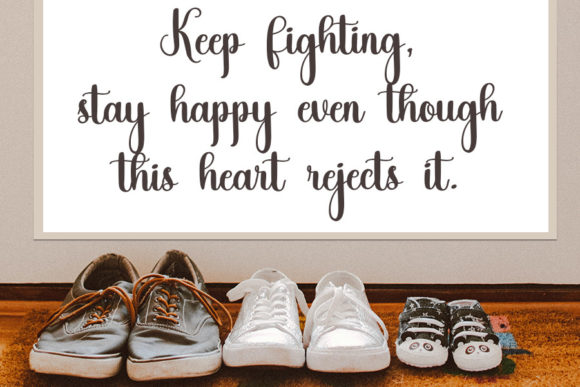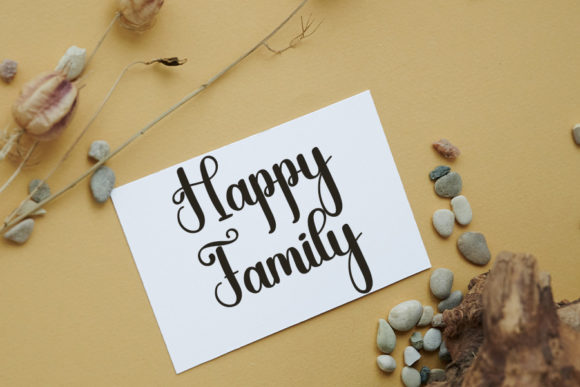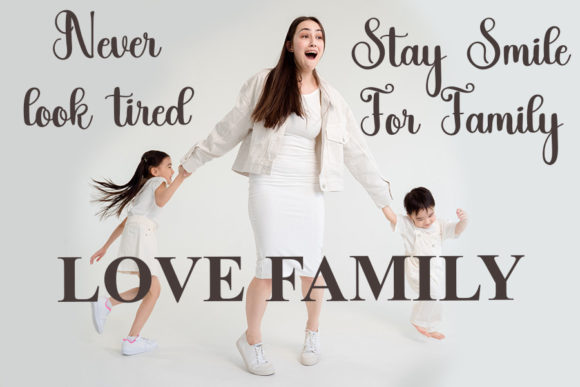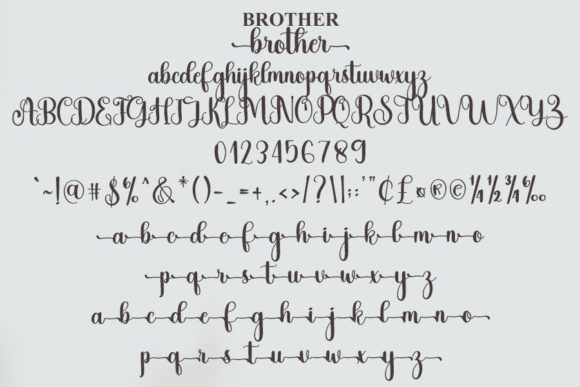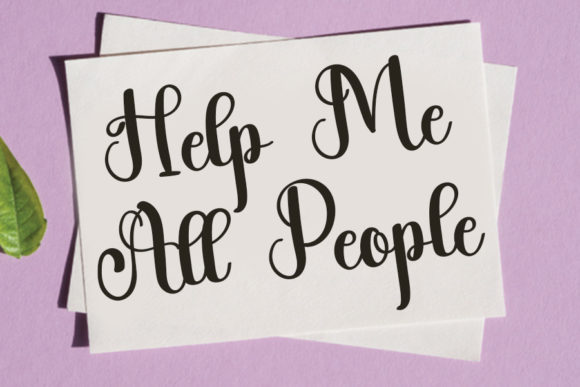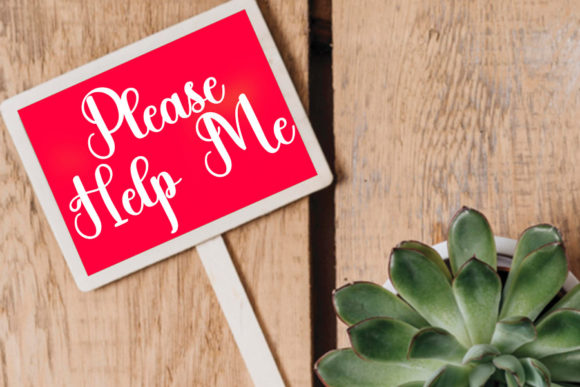
Introducing Brother Font: A Timeless Classic with a Contemporary Twist
Are you tired of using the same old fonts in your designs? Look no further than Brother Font, a stylish handwritten font that brings a touch of elegance and sophistication to any project. Inspired by timeless classic calligraphy, Brother Font is a contemporary take on traditional typography, perfect for designers and crafters looking to add a unique touch to their work.
The Story Behind Brother Font
Brother Font is more than just a font – it’s a work of art. With its impeccable form and stylish handwritten aesthetic, this font is sure to turn heads. The creators of Brother Font drew inspiration from classic calligraphy, taking the best elements of traditional typography and updating them for the modern era. The result is a font that is both timeless and contemporary, perfect for a wide range of design applications.
What Sets Brother Font Apart
So what makes Brother Font so special? For starters, it’s PUA encoded, which means you can access all glyphs and swashes with ease. This makes it easy to customize your text and add unique touches to your designs. Additionally, Brother Font features a range of characters, including:
- Uppercase and lowercase letters
- Numbers and punctuation
- Glyphs and swashes
This extensive character set makes Brother Font incredibly versatile, suitable for use in a wide range of design projects, from logos and branding to invitations and social media graphics.
Brother Font is a dream come true for designers and crafters. Whether you’re creating professional marketing materials or fun DIY projects, this font is sure to elevate your work. Here are just a few ways you can use Brother Font:
- Logos and branding: Create a unique and memorable logo for your business or personal brand with Brother Font.
- Invitations and events: Add a touch of elegance to your invitations, wedding stationery, and other event materials.
- Social media graphics: Stand out on social media with eye-catching graphics featuring Brother Font.
- DIY projects: Use Brother Font to add a personal touch to your DIY projects, such as handmade cards, gift tags, and more.
Tips for Using Brother Font
To get the most out of Brother Font, here are a few tips:
- Experiment with different sizes: Brother Font looks great in a range of sizes, from small and delicate to large and bold.
- Play with glyphs and swashes: Take advantage of Brother Font’s extensive character set to add unique touches to your text.
- Pair with other fonts: Try pairing Brother Font with other fonts to create interesting and dynamic text combinations.